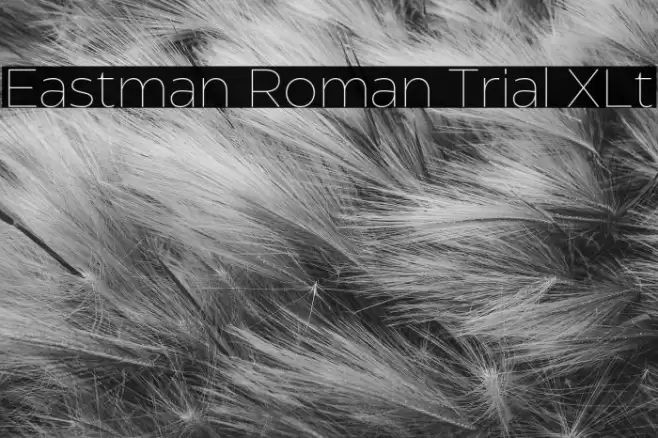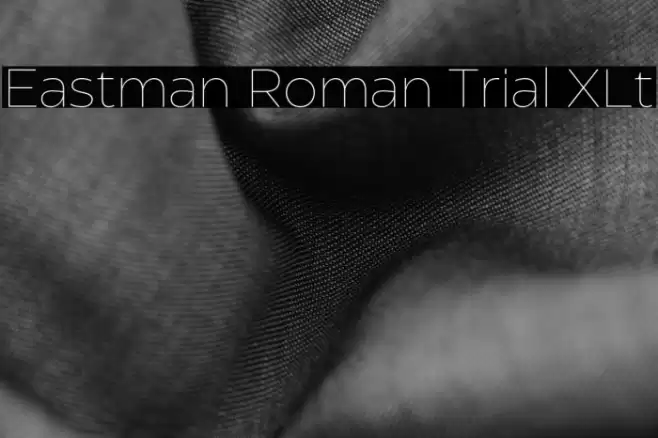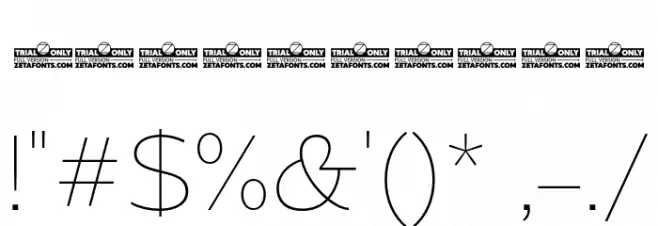
Eastman Roman Trial XLt Font
Eastman Roman Trial XLt Description
This font features a clean and minimalist design with a modern aesthetic. The characters are crafted with thin, uniform strokes, giving it a sleek and elegant appearance. The uppercase and lowercase letters maintain a consistent height and width, contributing to a harmonious and balanced look. The font includes a full set of numerals and a variety of special characters, making it versatile for different design needs. Its simplicity and clarity make it suitable for both digital and print media, ensuring readability across various platforms.
A modern, minimalist font with thin, uniform strokes and a sleek appearance from Uncategorized fonts.
- Proposed Projects: Ideal for branding, editorial design, web design, and corporate identity projects.